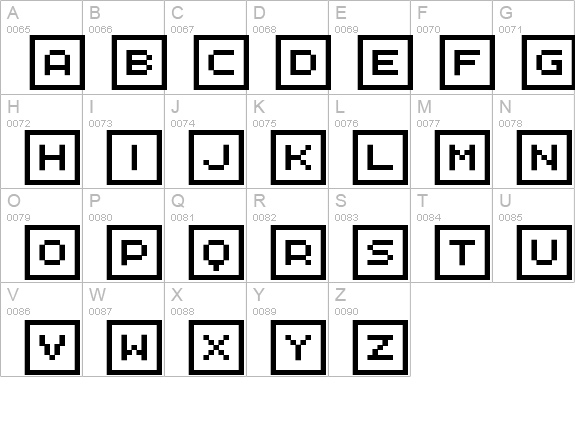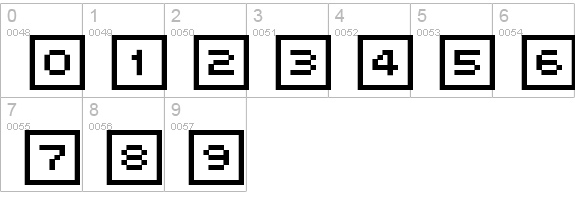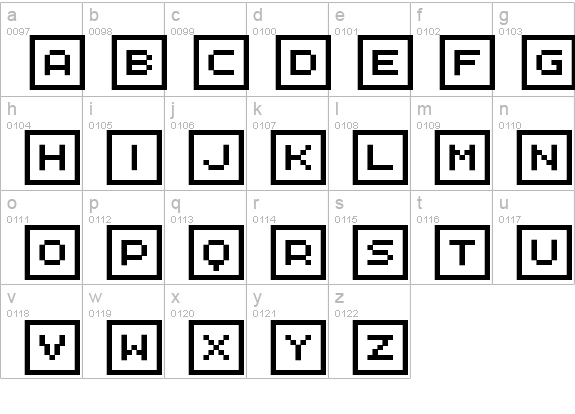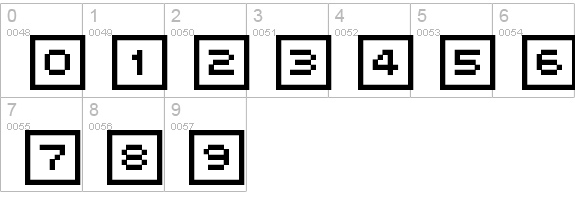
The FFF Interface03 font is a sleek and modern typeface that exudes a sense of sophistication and professionalism. With its clean lines and contemporary design, this font is perfect for a wide range of projects, from website headers to business cards. The versatility of FFF Interface03 makes it a go-to choice for designers looking to make a bold statement with their typography. What sets FFF Interface03 apart is not only its stylish appearance but also its accessibility - this font is available for free download at FontsMarket.com. Whether you're a seasoned designer or just starting out, FFF Interface03 is a valuable addition to your font collection. Embrace the modern aesthetic and elevate your designs with the distinctive charm of FFF Interface03.